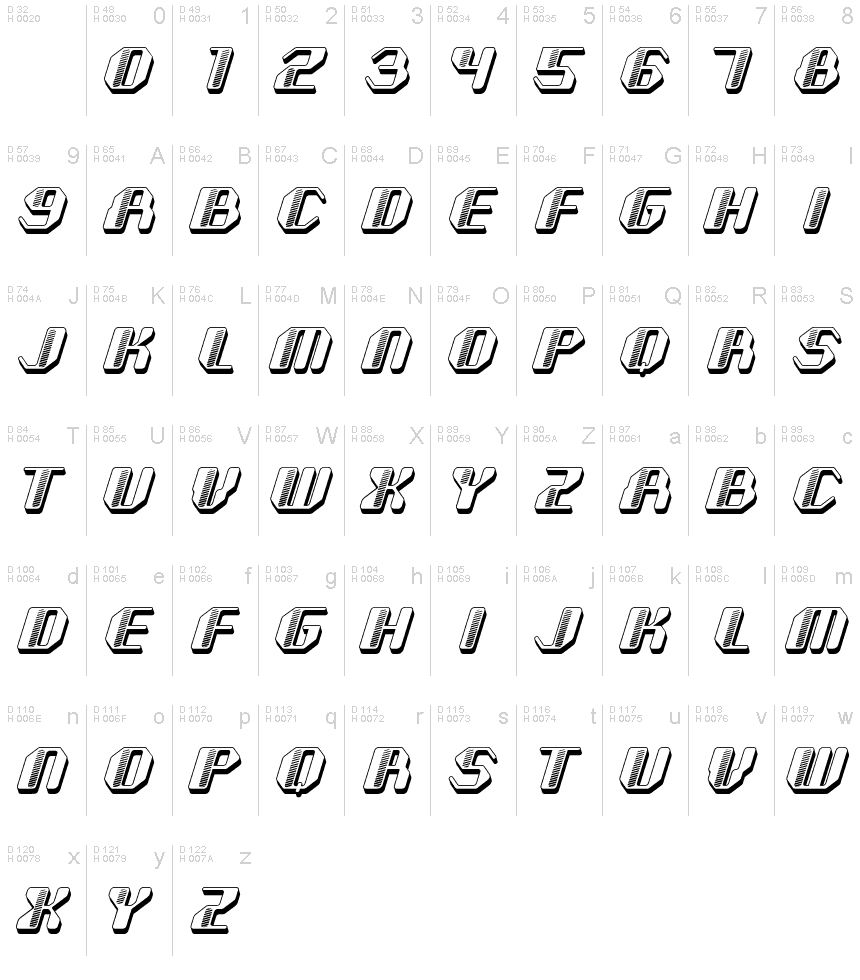
Methode Regular
Methode is a bold and 3d techno display font from Vladimir Nikolic. It's perfect for creating eye-catching titles and logos, as well as futuristic projects such as tech/gaming posters, flyers, and more.